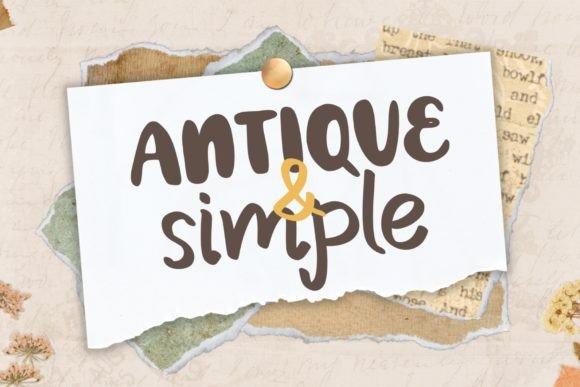
The Timeless Elegance of Antique & Simple Font
I still remember the design project that led me to discover the Antique & Simple font. I was working on a vintage-themed wedding invitation, and I was struggling to find the perfect font that would capture the essence of a bygone era. The client wanted something classic, refined, and elegant, but not too ornate or over-the-top. After hours of scouring font libraries and searching online, I stumbled upon Antique & Simple, and it was love at first sight! ✨
So, what makes Antique & Simple so special? Here are a few things I love about this beautiful font:
• ✅ Classic and refined style that’s perfect for creating a sense of nostalgia and sophistication
• ✨ Elegant lines and curves that add a touch of vintage charm to any design project
• 🔍 Highly legible, even at small font sizes
• 🎨 Versatile and can be used for a wide range of design projects, from invitations and greeting cards to logos and branding
Of course, no font is perfect, and Antique & Simple has a few small quirks:
• 🤔 Limited OpenType features, which may limit its use in certain design applications
• ⚠️ Some users may find the font a bit too delicate or fragile for certain design projects
The Designer Inspiration Behind Antique & Simple
Antique & Simple was designed with the goal of creating a font that would evoke the elegance and sophistication of a bygone era. The designer drew inspiration from classic typography and vintage design, with a focus on creating a font that would be both timeless and versatile.
What is the personality of Antique & Simple? Antique & Simple is a classic and refined font with a vintage charm.
What design projects is Antique & Simple best suited for? Antique & Simple is perfect for invitations, greeting cards, logos, and other design projects that require a touch of elegance and sophistication.
Is Antique & Simple easy to read? Yes, Antique & Simple is highly legible, even at small font sizes.